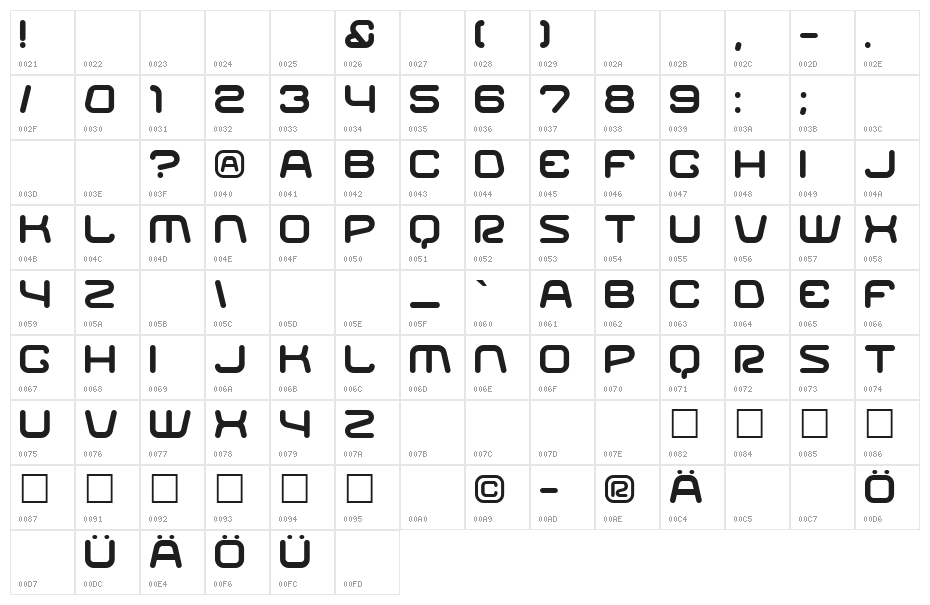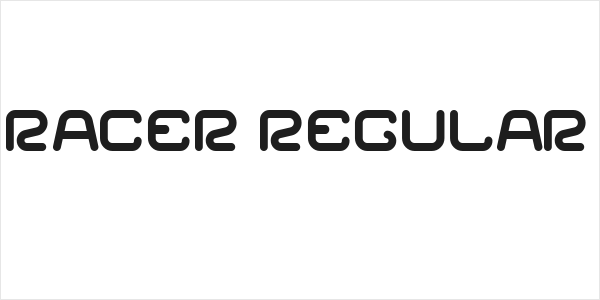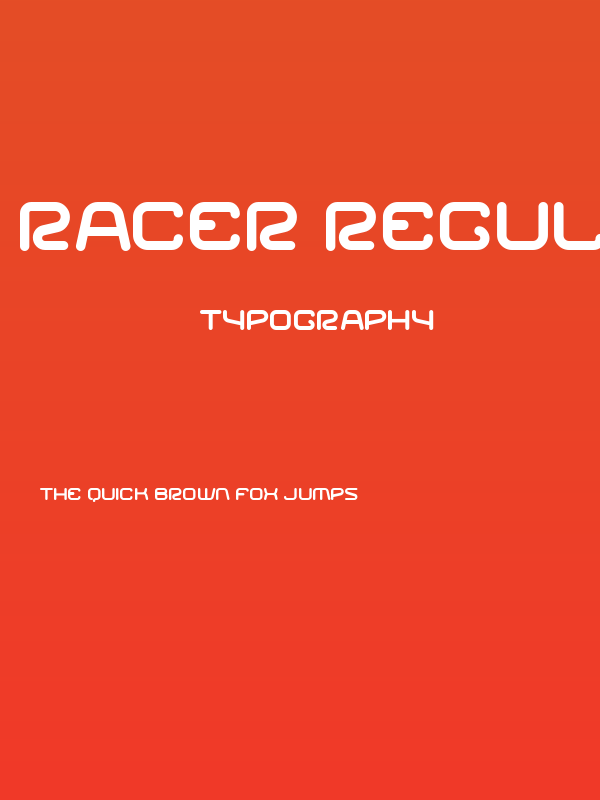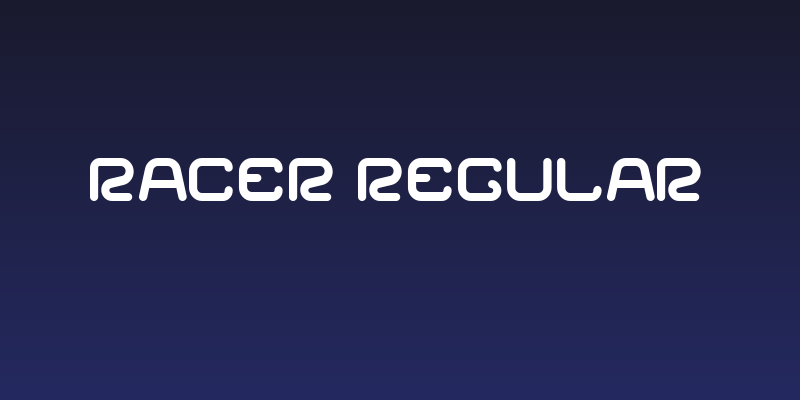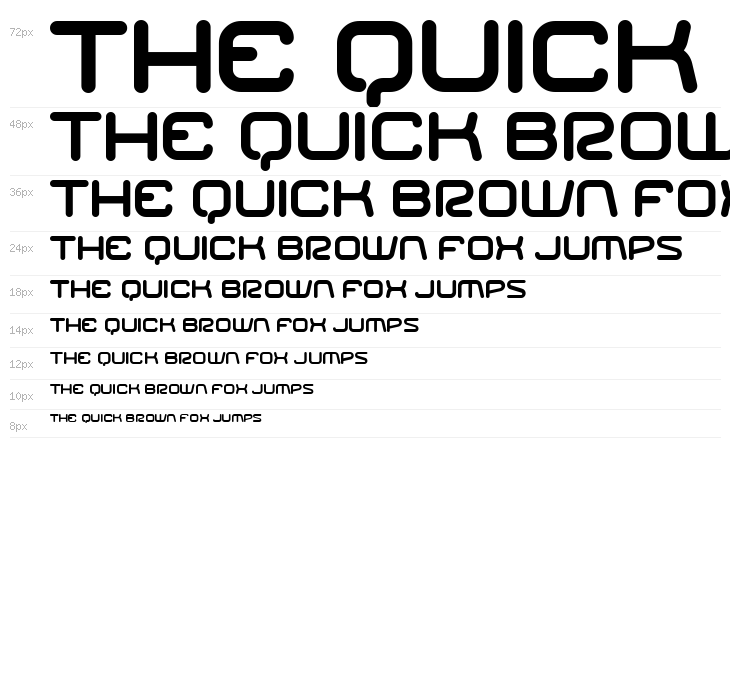
Racer Regular Font
Racer Regular Description
This font features a sleek, modern design with rounded edges and a geometric structure. The characters are uniform in height, creating a cohesive and balanced appearance. The font has a futuristic and sporty feel, reminiscent of racing or automotive themes. The letters are slightly condensed, enhancing its streamlined look. The numerals and special characters maintain the same stylistic elements, ensuring consistency across all glyphs. This font is ideal for projects that require a dynamic and energetic aesthetic.
| Proposed Projects | Ideal for automotive branding, sports event posters, tech-related logos, and dynamic website headers. |